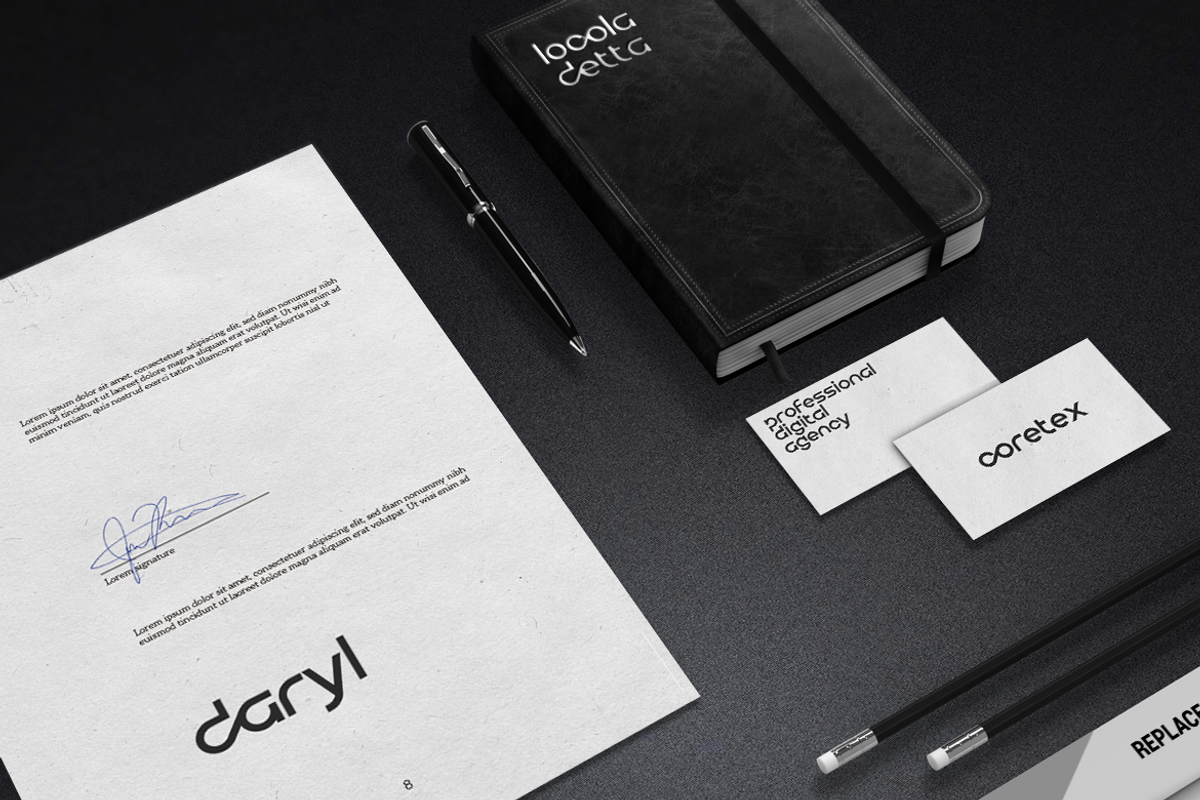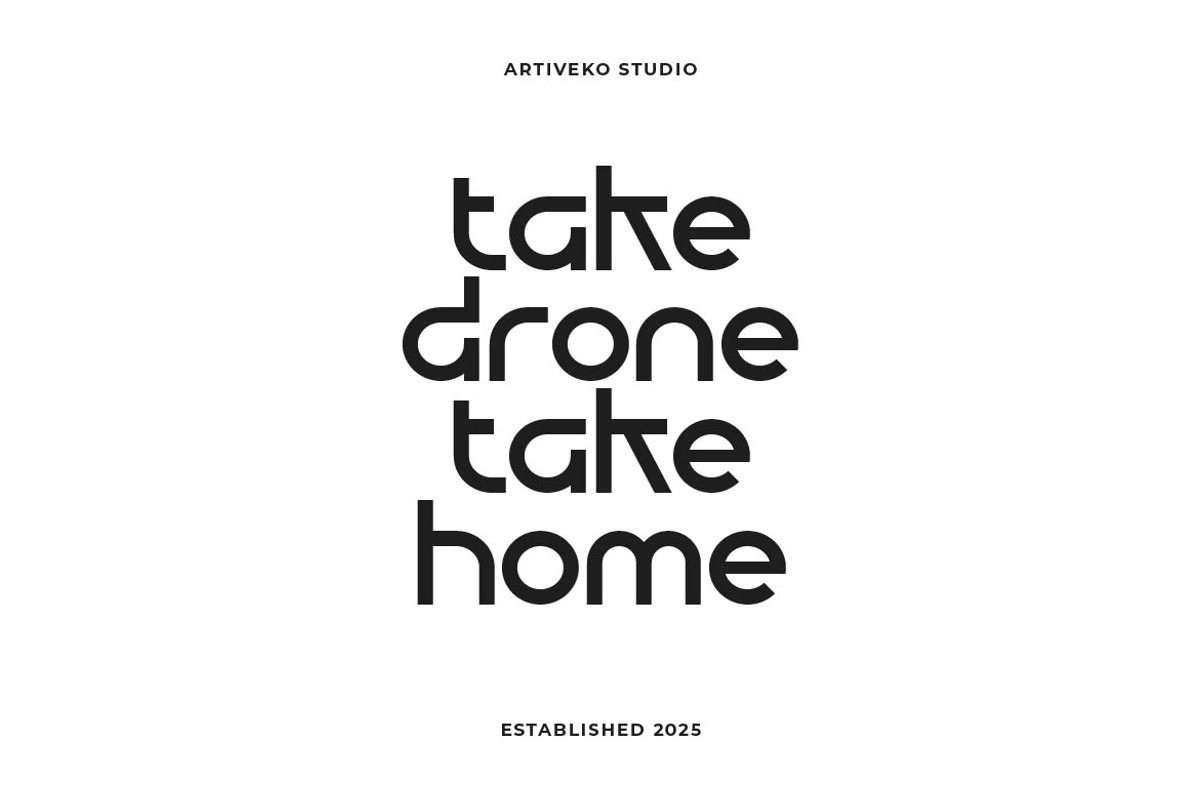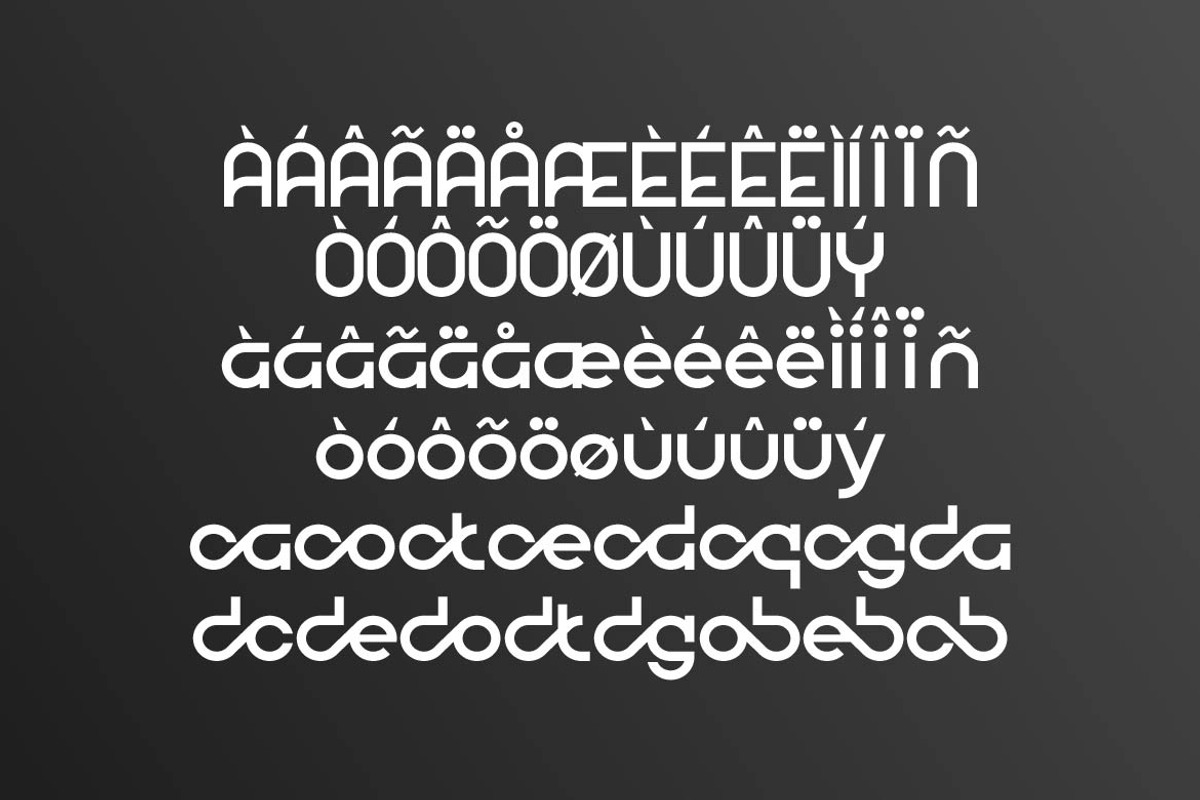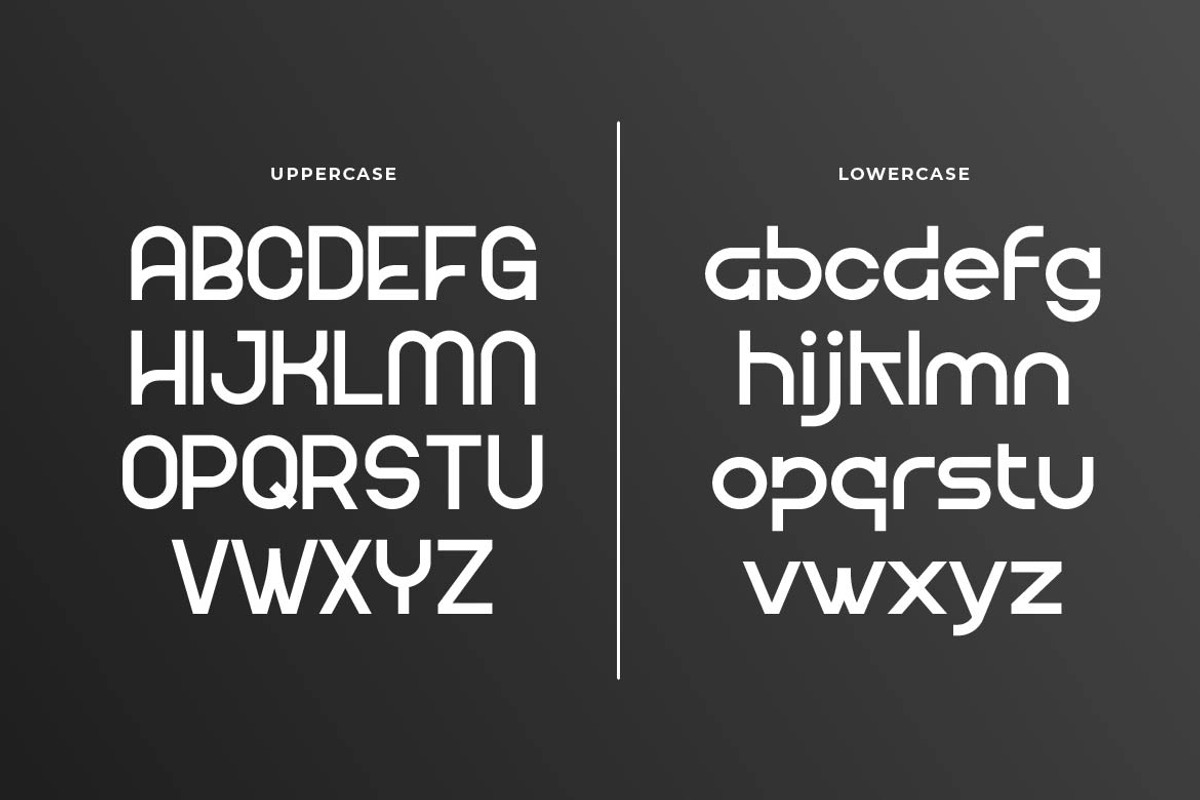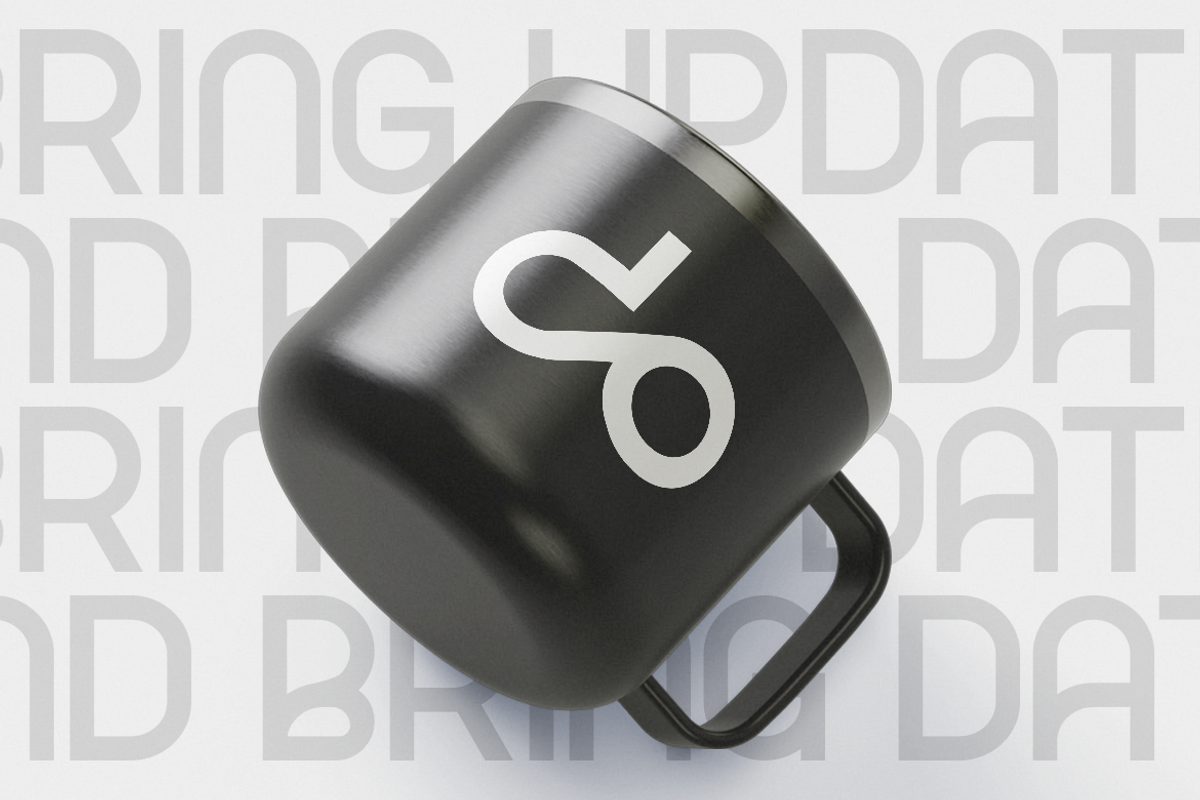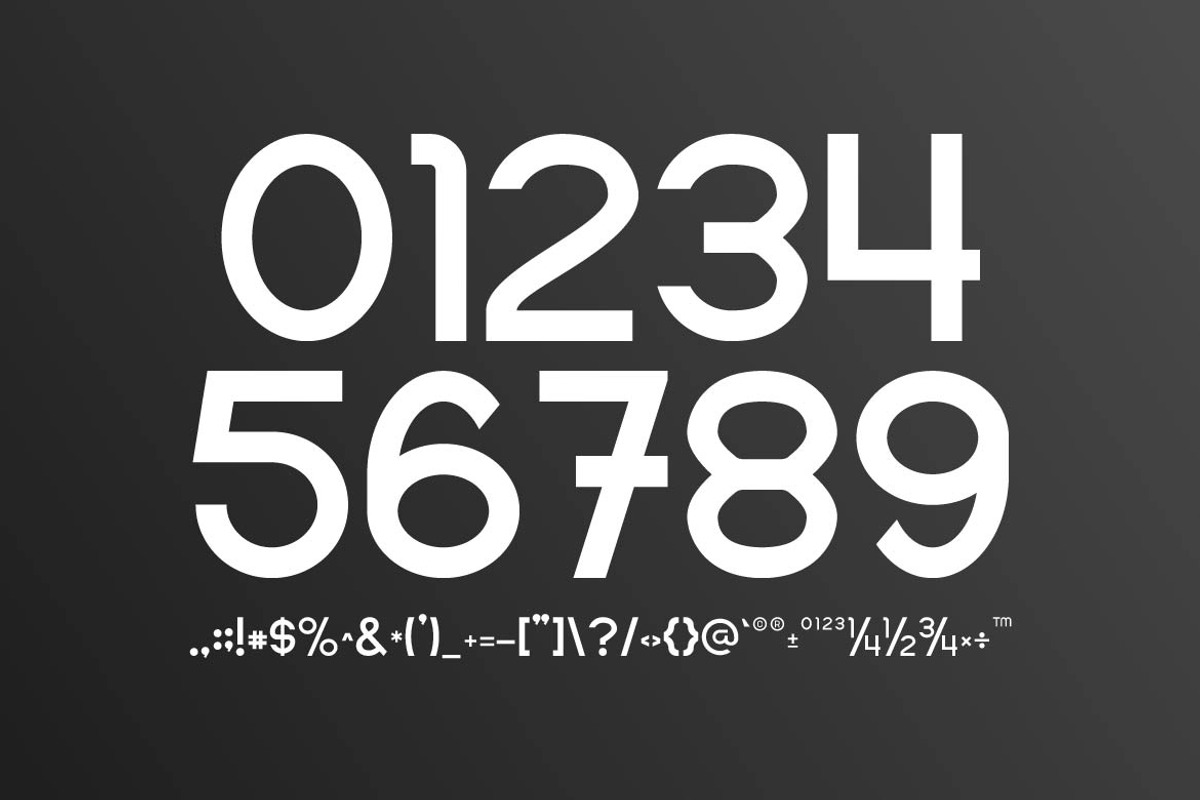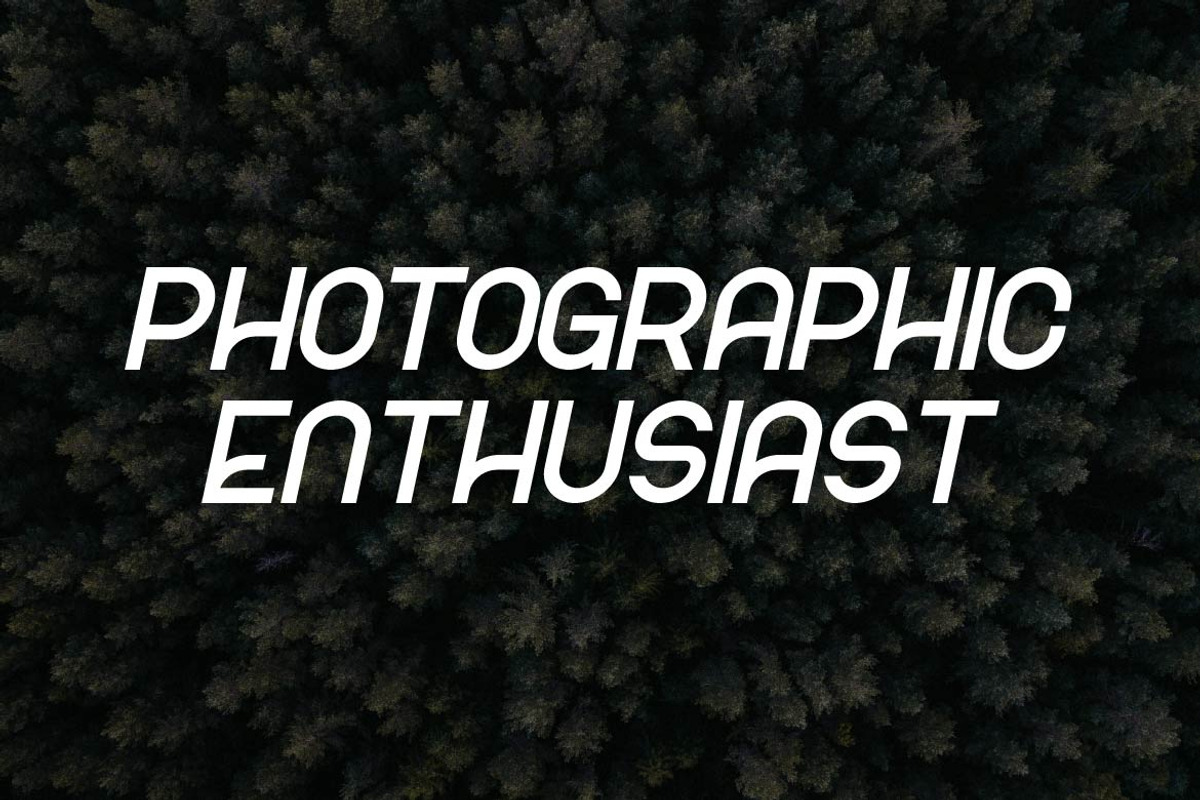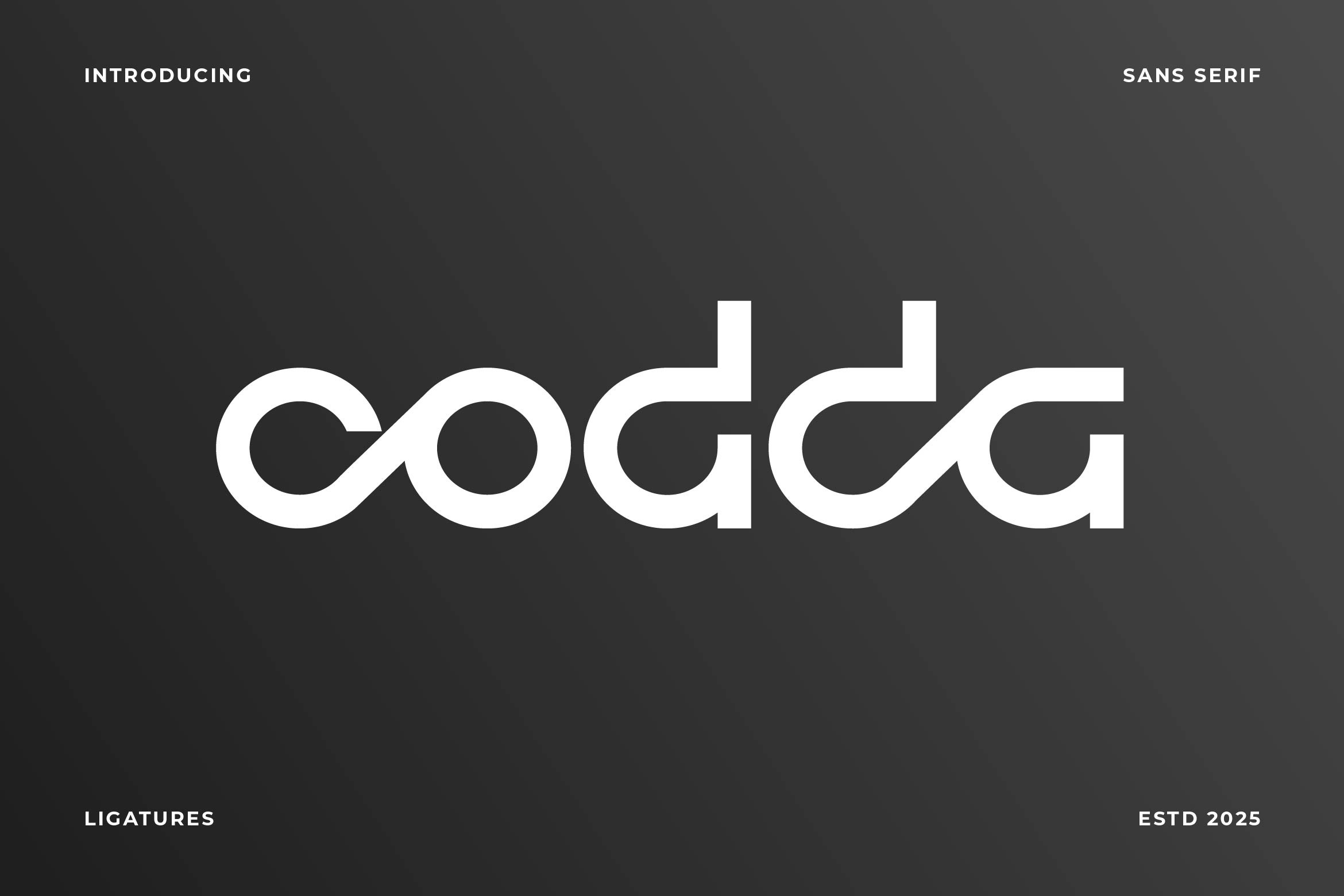
Designed by Iwan Alwan Owner of Artiveko 206 sales
Codda Rounded Logo Font
Codda is a modern logo font designed to elevate your branding with clean lines, distinctive forms, and timeless versatility. Crafted for bold identities, Codda blends geometric balance with creative character, making it the perfect choice for logos, monograms, packaging, and headlines that demand attention. This fonts are great for product logo,wedding card logo, clothing brand logo, Vintage design and much more.